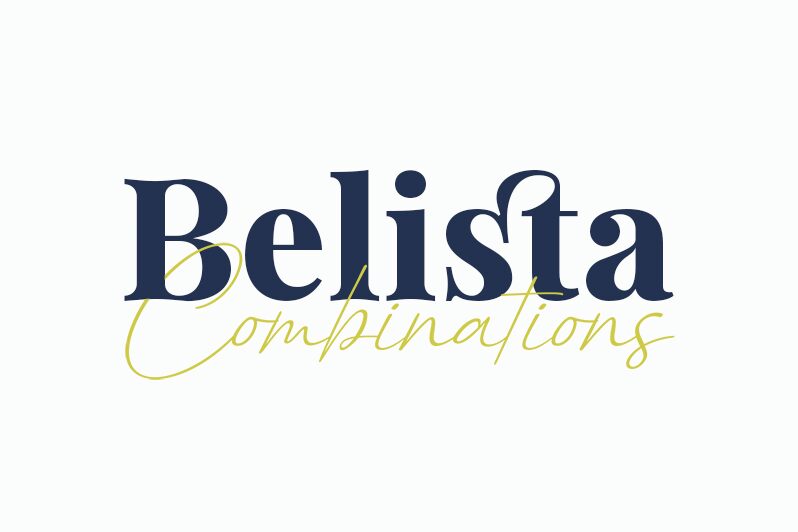
Belista is a lovely duo font (serif and script), comprising both elegance and assertiveness. Fall in love with its incredibly versatile style and use it to create gorgeous wedding invitations, beautiful stationary art, eye-catching social media posts, and much more!
Belista Caps